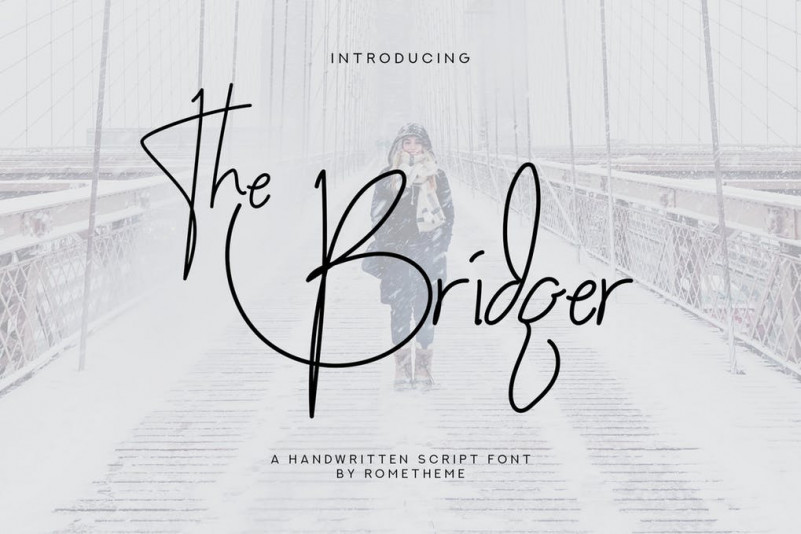
The Bridger Font
The Bridger Script is a simple and classy handwritten font, this font looks elegant, classy, readable, stylish, catchy and easy to use.
The Bridger Script Font is the best choice for your professional design projects, including signature, watermark on photography, quotes, album cover, business card, logo, branding, magazines, social media, advertisements, product designs, and much other design projects.